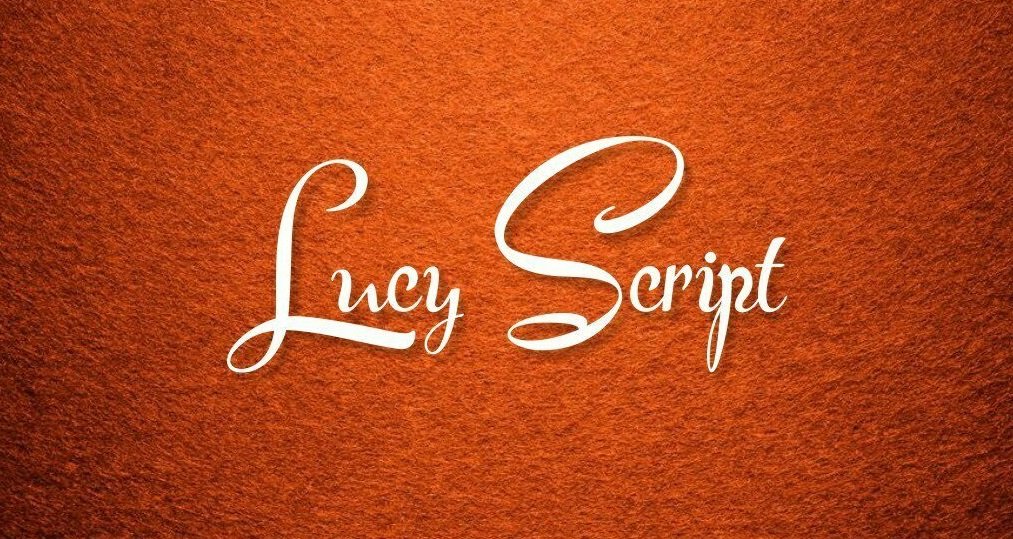
About Lucy Script Font
Lucy Script Font captures the beauty of natural handwriting with its graceful, flowing strokes. This versatile script features elegant letterforms and playful ligatures, offering a touch of refined personality. Its balanced warmth and readability make it ideal for wedding invitations, branding, logos, and social media quotes. The font includes stylistic alternates for custom flair, ensuring each design feels unique and handcrafted. Effortlessly elevate any project with Lucy Script's timeless, sophisticated charm.